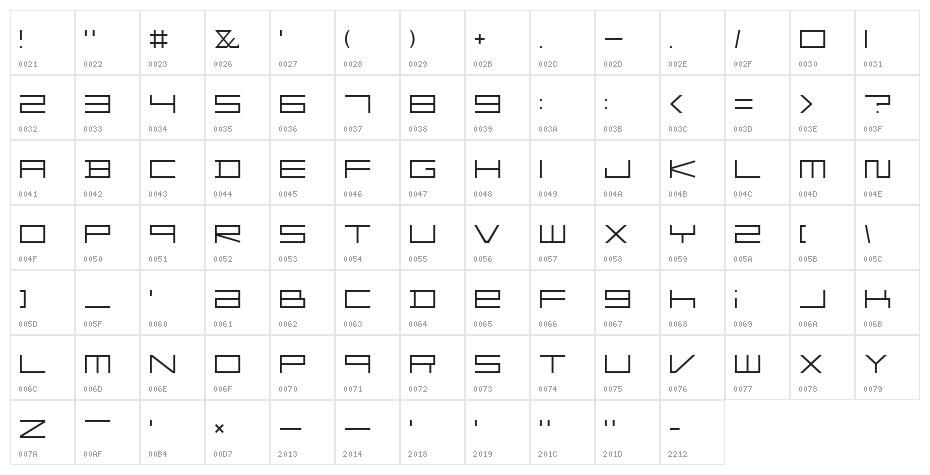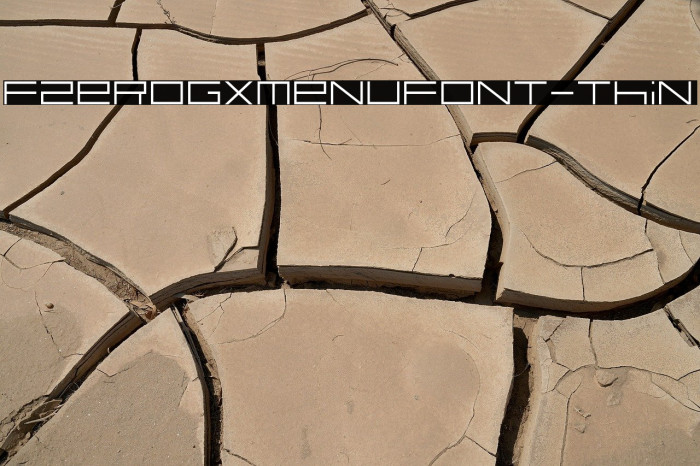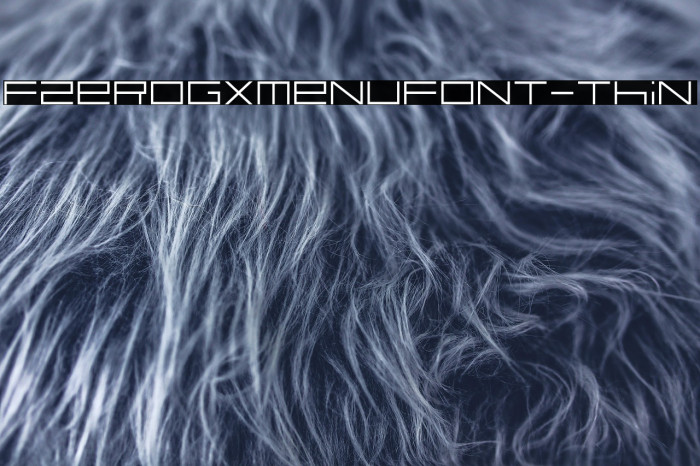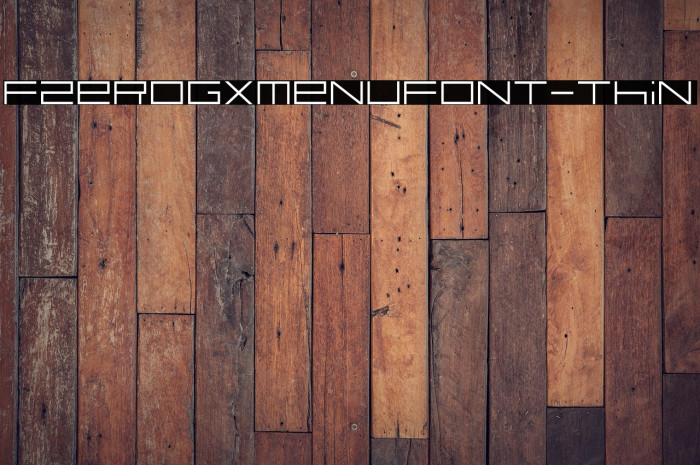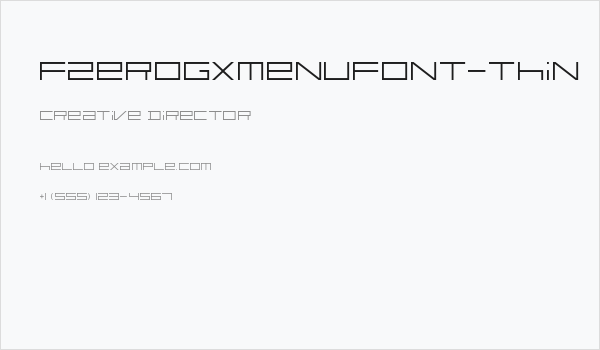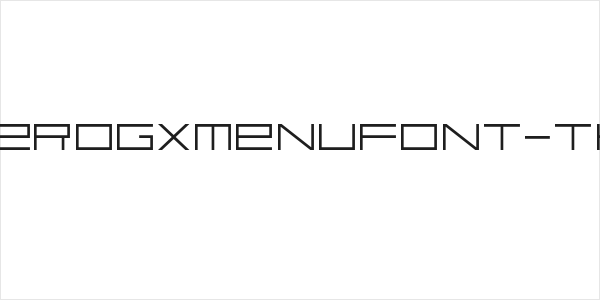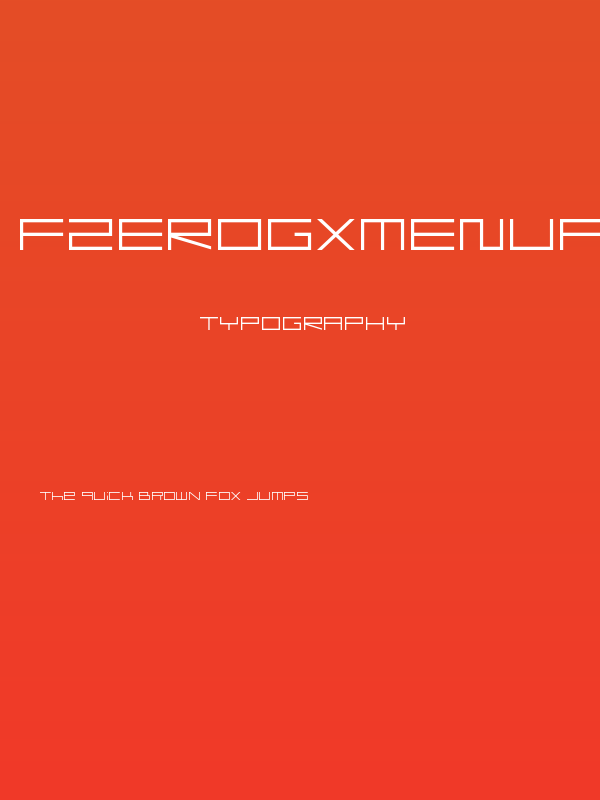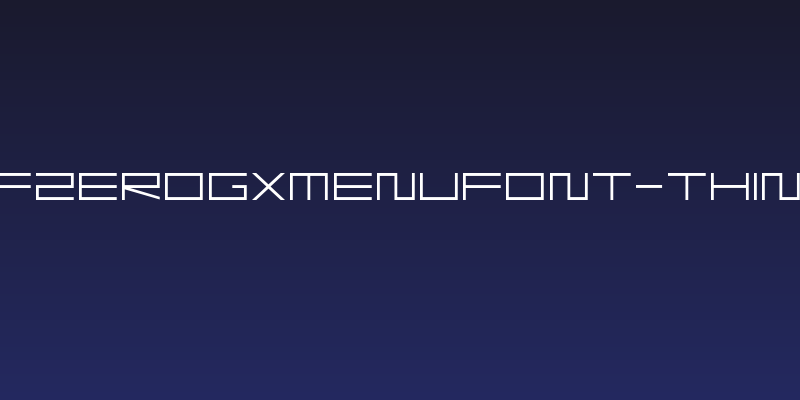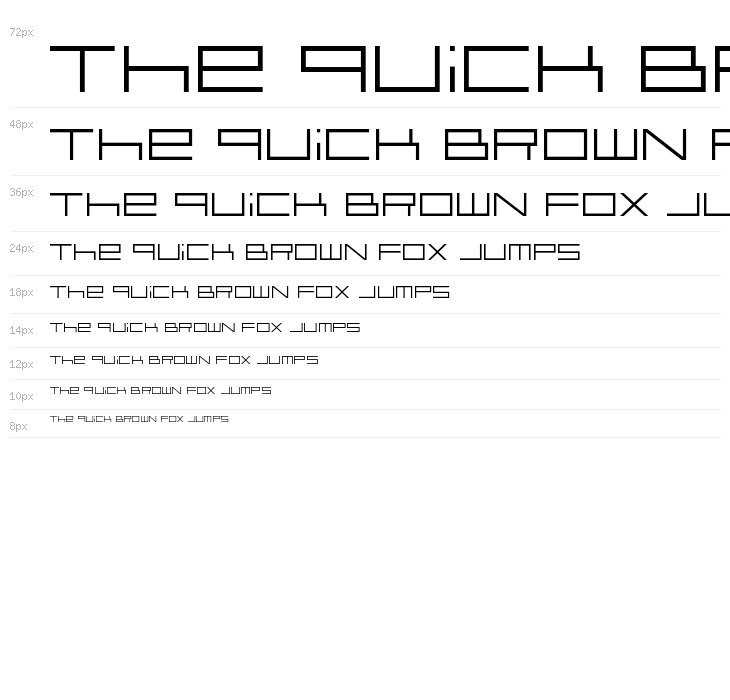
FZeroGXMenuFont-Thin Font
FZeroGXMenuFont-Thin Description
This font showcases a futuristic and geometric design, characterized by its thin, linear strokes and angular forms. The uppercase and lowercase letters maintain a consistent height, giving a uniform appearance. The numerals and special characters follow the same design principles, ensuring a cohesive look across all elements. The font's clean lines and minimalistic style make it suitable for modern and tech-oriented applications. Its distinct angularity and open spacing contribute to a highly legible and visually appealing typeface.
| Use Case | Logos, Headlines, Digital interfaces |
| Proposed Projects | Ideal for tech branding, video game interfaces, sci-fi themed projects, and modern digital displays. |